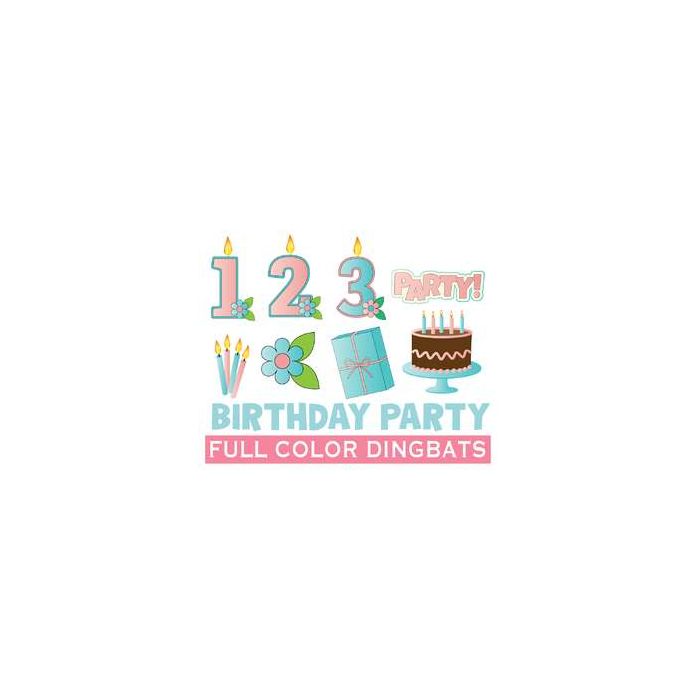
SI BDAY PARTY birthday number candles dingbats font
Each full-color dingbats font has 26 elements to use for scrapbooking, planner stickers, heat press, tattoo paper, cards, as framed prints, posters, flyers - so much.